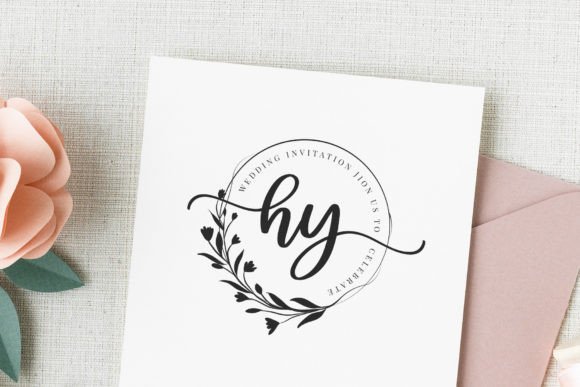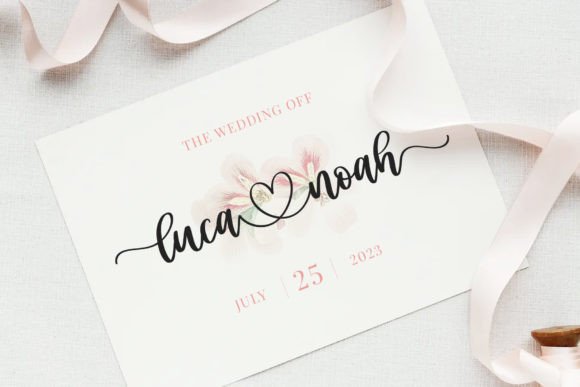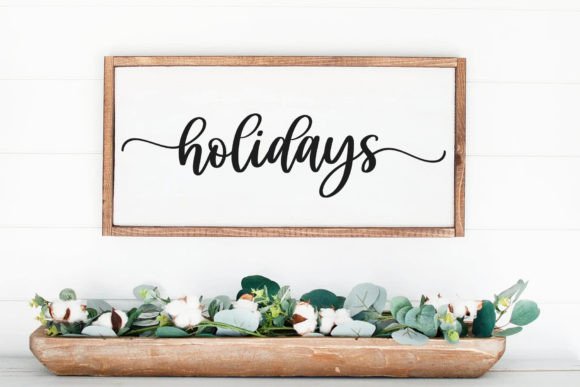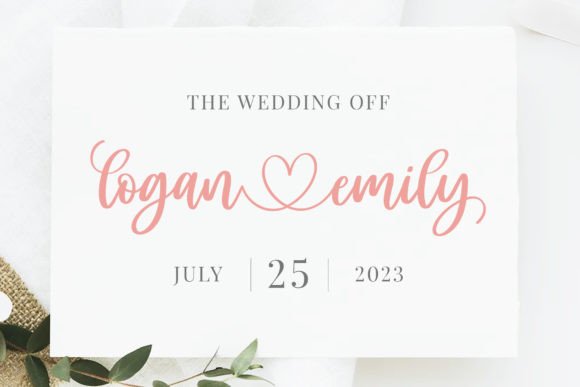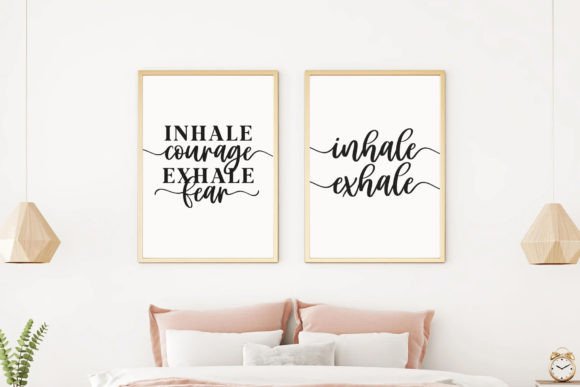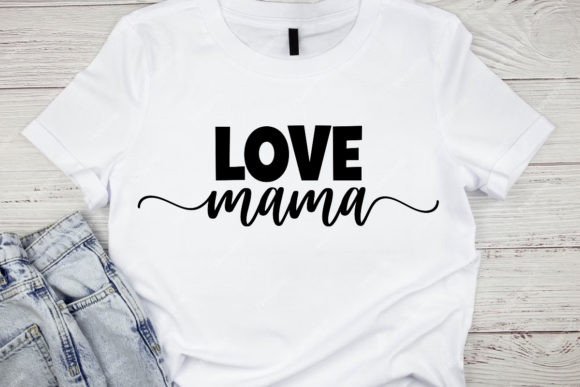
Introduction to Liya Hary Font
Liya Hary is a romantic and sweet calligraphy typeface with characters that dance along the baseline.
Key Features of Liya Hary Font